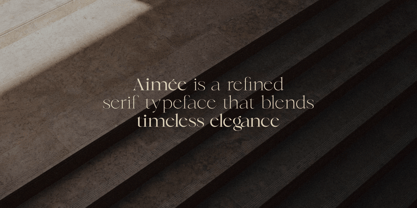
Aimee
by Reyrey Blue Std
Introducing Aimée, a refined and graceful serif typeface inspired by classic editorial beauty and timeless sophistication. Created by ReyreyBlue Std, this font family offers a luxurious typographic experience that seamlessly blends modern minimalism with vintage charm.
Designed to elevate your creative projects, Aimée features clean, high-contrast strokes, delicate curves, and elegant serifs that exude poise and femininity. With 5 distinct styles included, Aimée is a versatile choice for a wide range of design needs—perfect for high-end branding, magazine layouts, wedding invitations, packaging, logos, fashion editorials, and more.
Whether you're crafting a chic logo or curating a romantic visual story, Aimée offers both readability and personality in every glyph.
Font Features:
• 5 Elegant Styles
• Uppercase & Lowercase
• Multilingual Support
Perfect For:
• Luxury Branding & Logos
• Editorial Designs & Magazines
• Beauty & Fashion Projects
• Invitations & Stationery
• Social Media Graphics
• Packaging Design